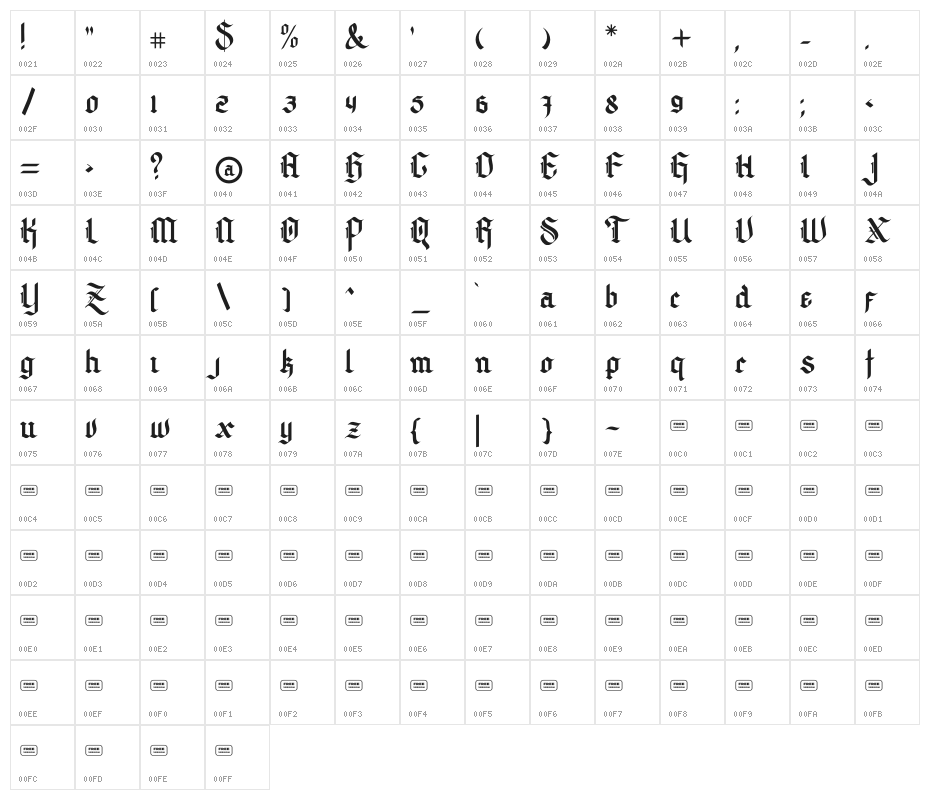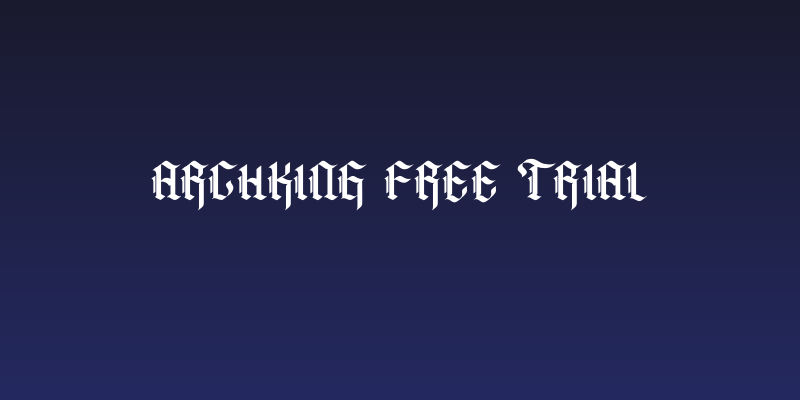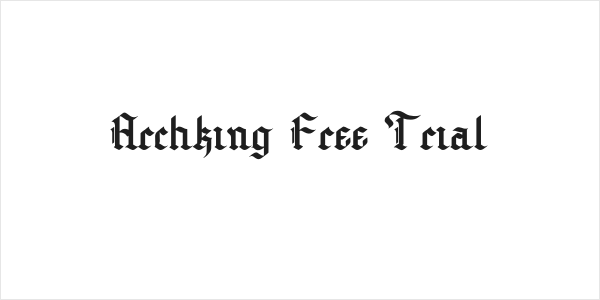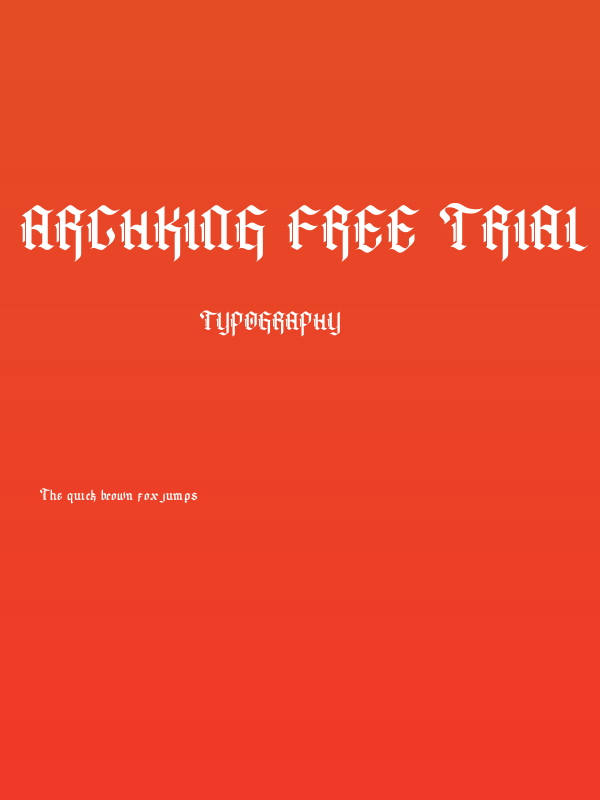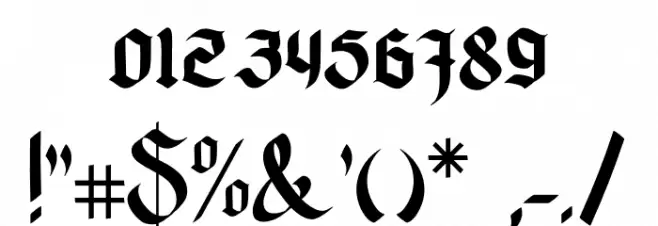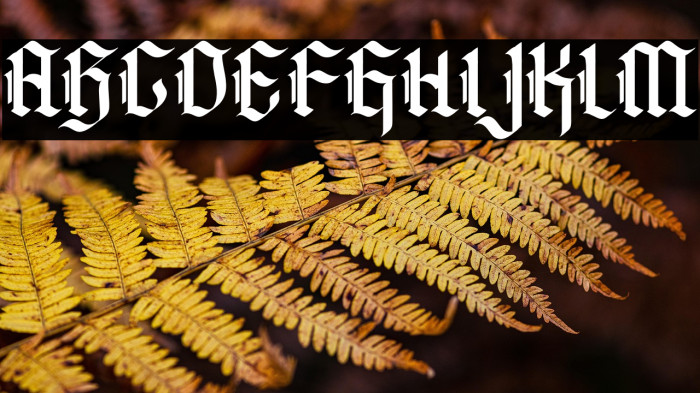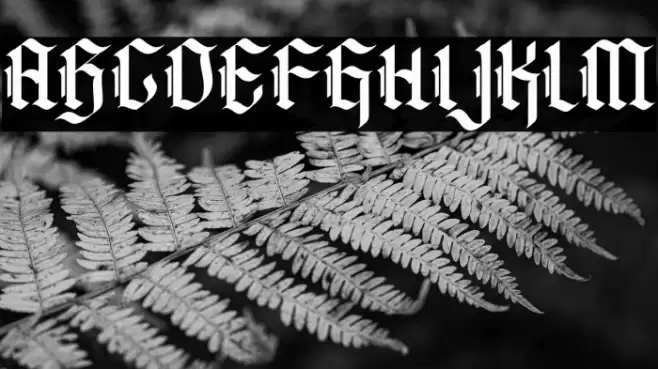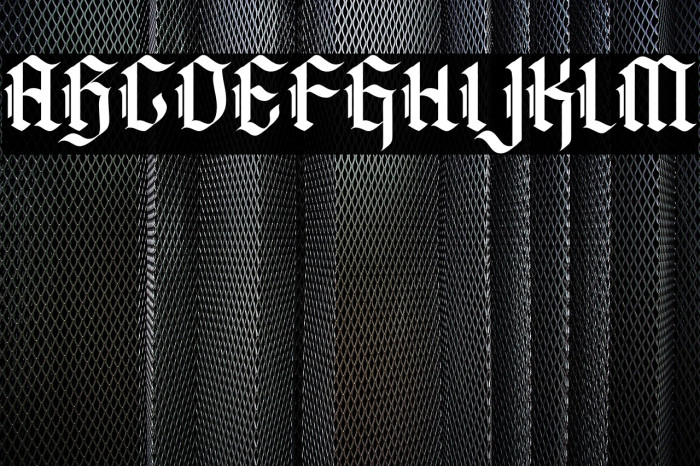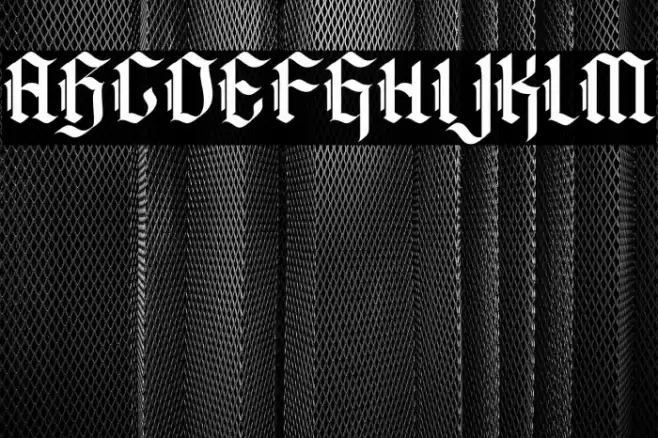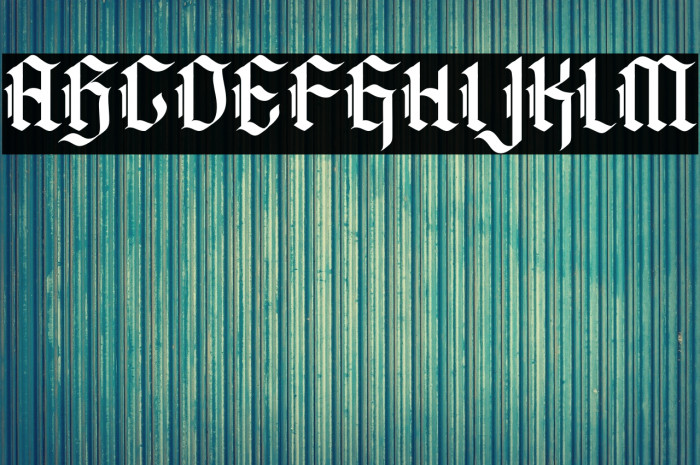
Archking Free Trial Font
Archking Free Trial Description
This font exudes a classic and historical aura, reminiscent of medieval manuscripts and traditional calligraphy. The characters are intricately designed with sharp, angular strokes and a high level of detail, giving it a distinct blackletter appearance. The uppercase and lowercase letters maintain a consistent style, with elaborate serifs and a bold presence. The numerals and special characters follow the same ornate design, ensuring uniformity across all glyphs. This font is ideal for projects that require a touch of elegance and historical depth.
| Overall Style | Vintage |
| Use Case | Headlines, Logos, Decorative text |
| Proposed Projects | Ideal for historical documents, vintage posters, book covers, and branding that requires a classic touch. |